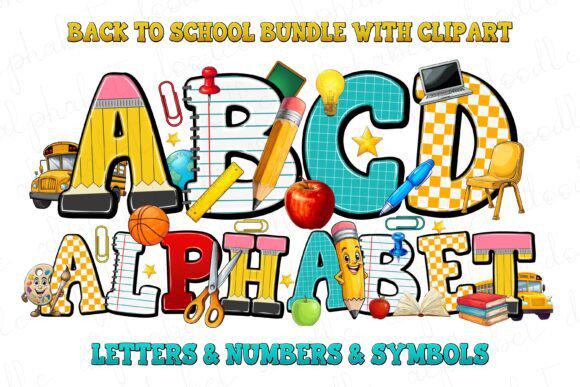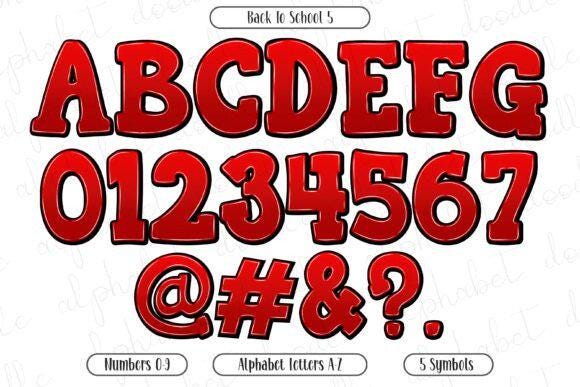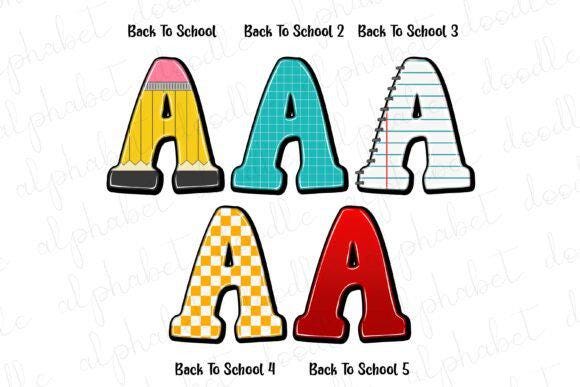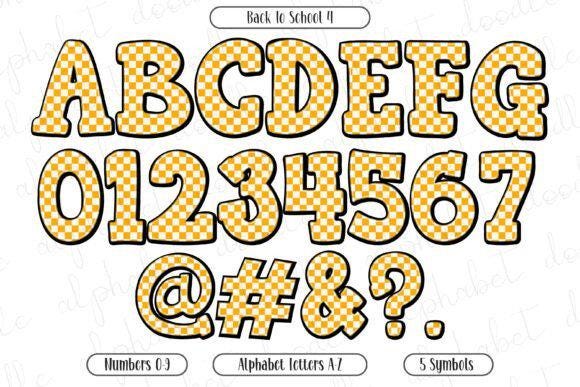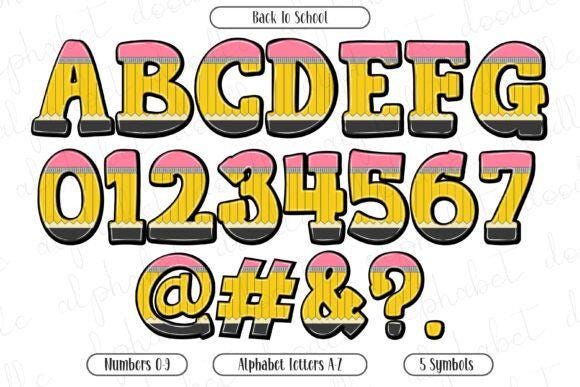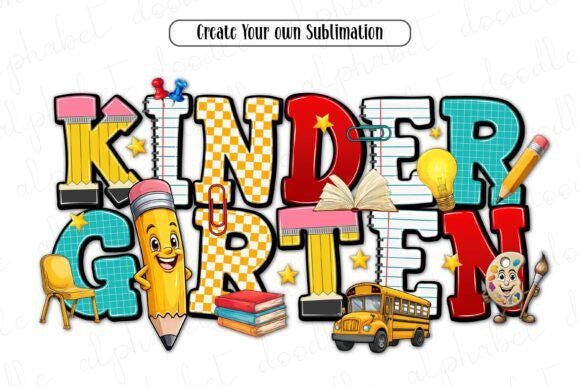
Back to School Font
Introducing 'Back to School', a bold and audacious typeface drenched in unique shades that capture your attention from the first glance. Its singular design blueprint elevates its presence, positioning it as the ultimate selection for a multitude of creative ventures. The ‘School Set’ mesmerizes with its alluring charm, a perfect symphony with frivolous and instructional themes for kids, infusing an animated and lively fervor into all design layouts. This strong and vibrant font carries an irresistible appeal that effortlessly propels your designs from the mundane to the magnificent. Experience the spellbinding aura of 'Back to School', injecting an element of fun and learning into every creative endeavor.